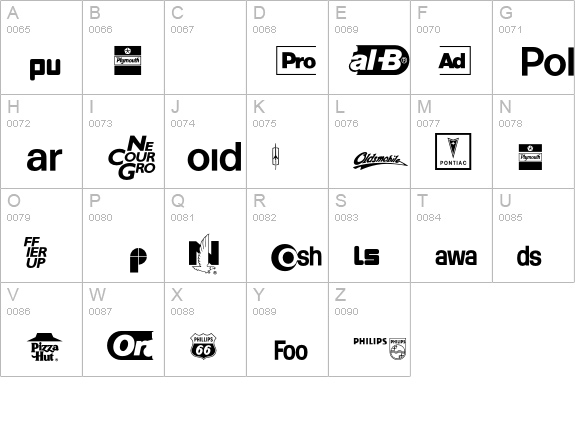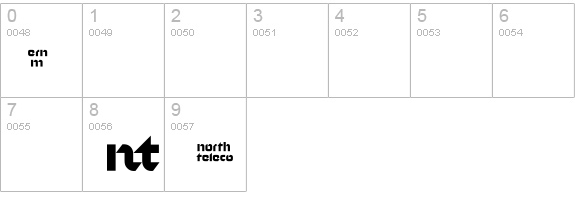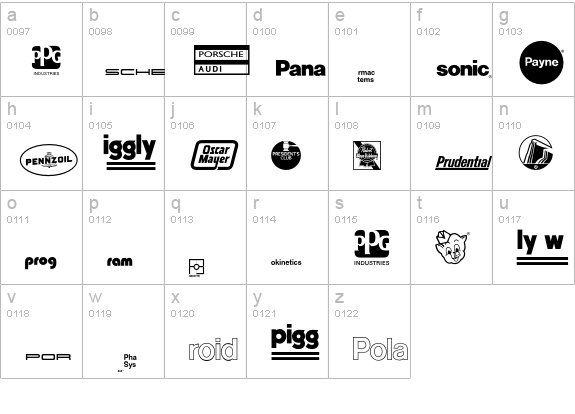
LogosCompanyP13 Font Details
LogosCompanyP13 font is a stylish and modern typeface that exudes sophistication and elegance. Its sleek lines and graceful curves make it perfect for a wide range of design projects, from branding to editorial design. The versatility of this font allows it to work well in both print and digital mediums. One of the best things about LogosCompanyP13 font is that it is completely free to download at FontsMarket.com. This means that you can easily access this beautiful font without any cost, making it a fantastic option for designers on a budget or anyone looking to add a touch of class to their projects without breaking the bank. Whether you're creating a sleek logo, a professional business card, or a stunning website, LogosCompanyP13 font is sure to elevate your design to the next level. Download it for free today and start creating beautiful and impactful designs with ease.